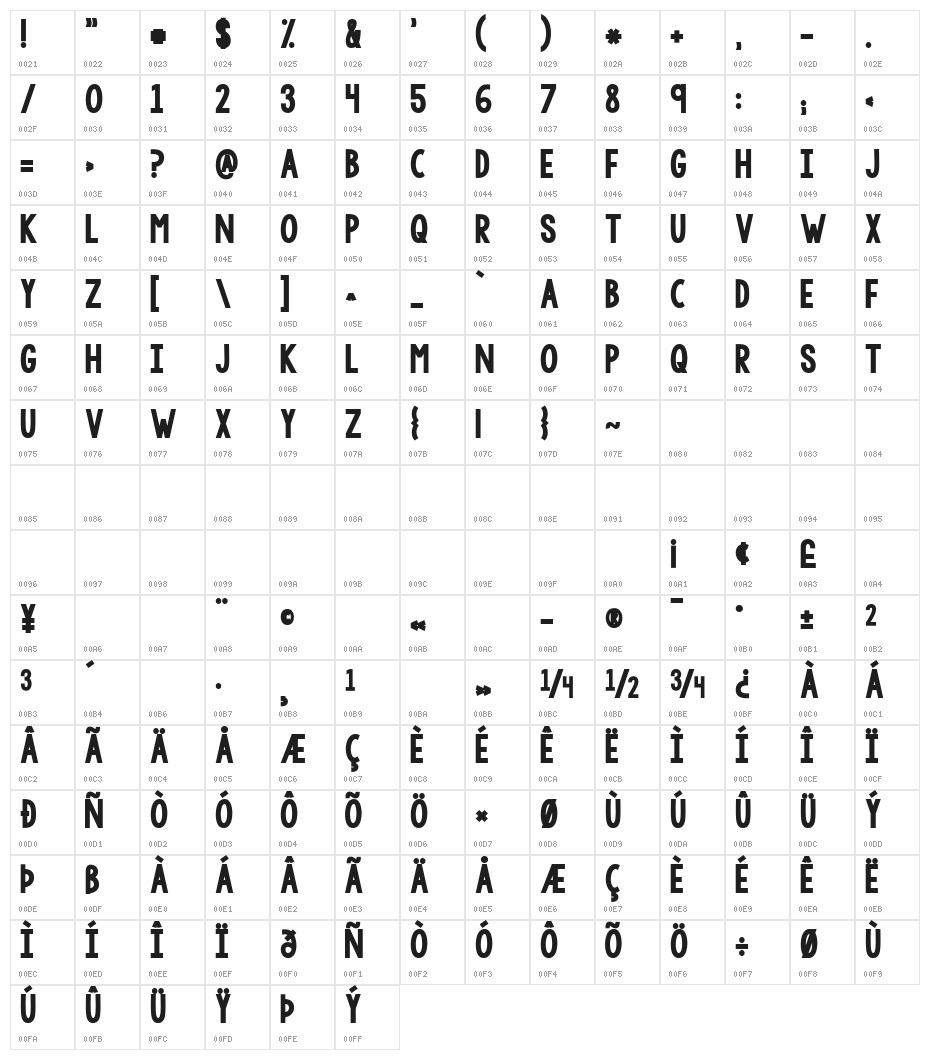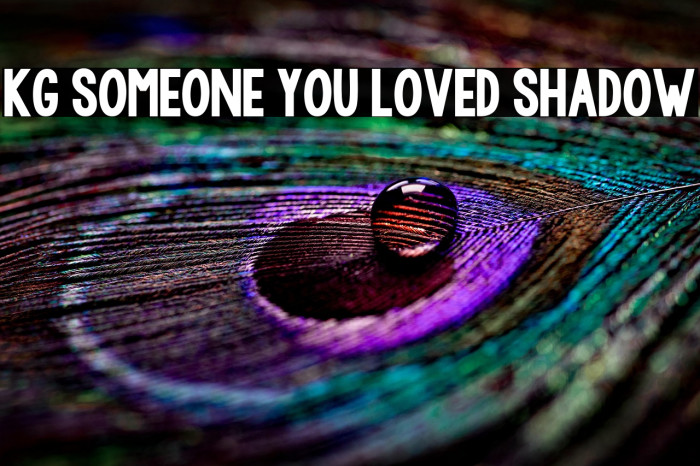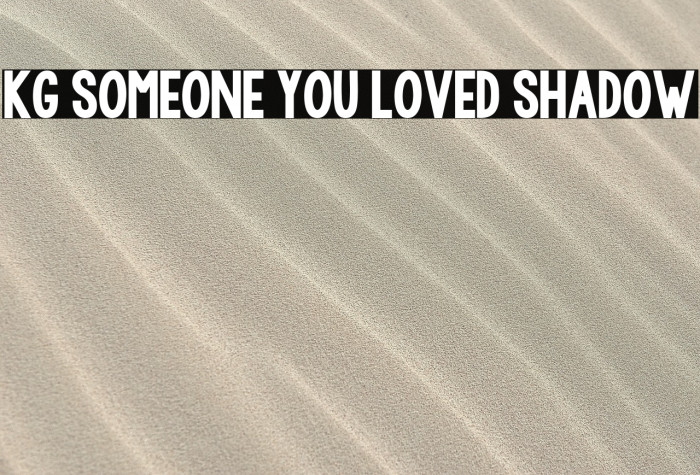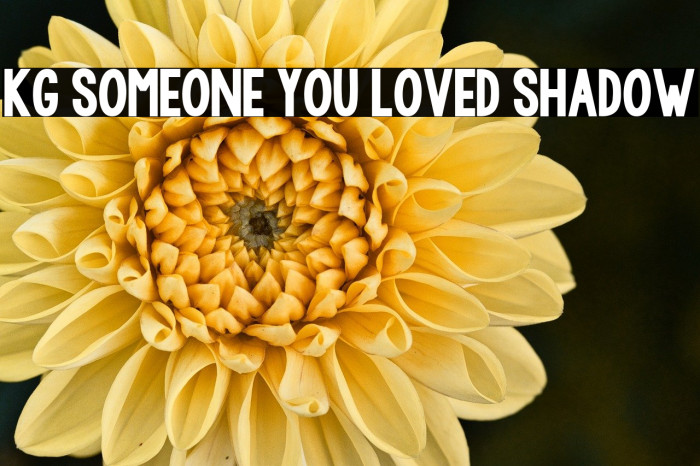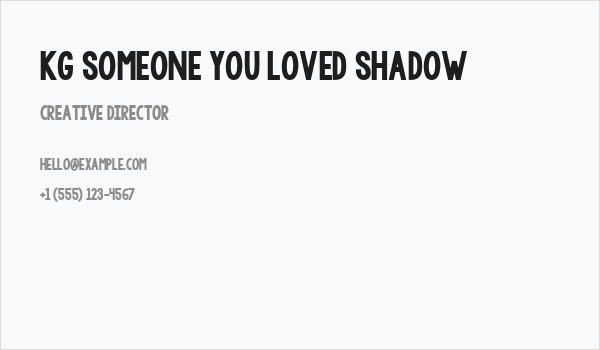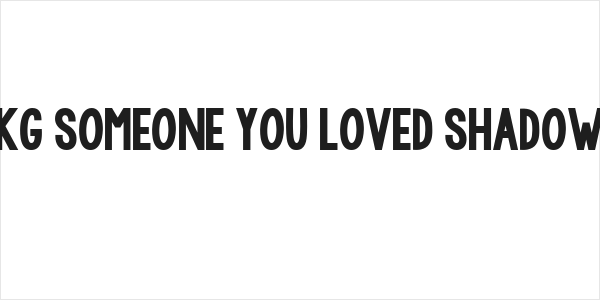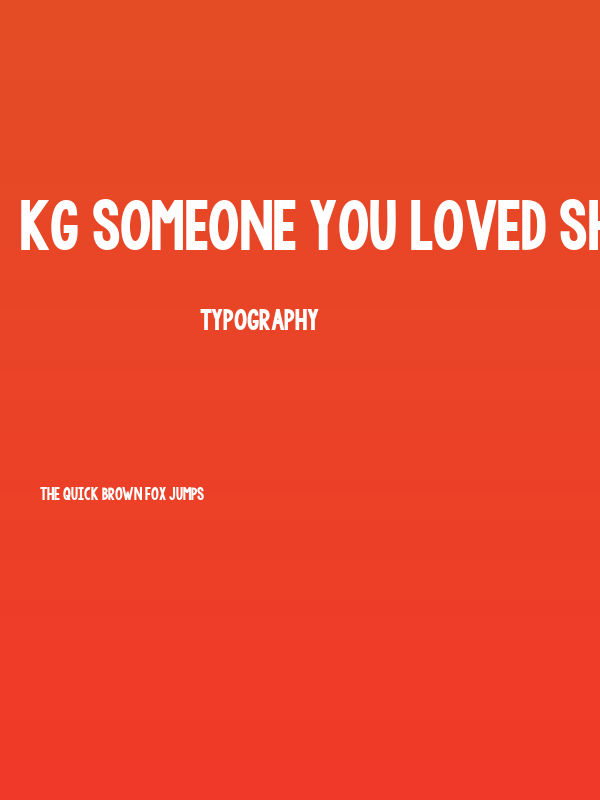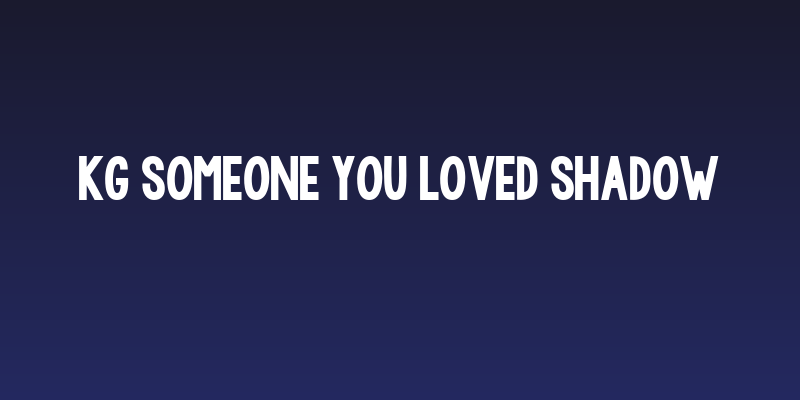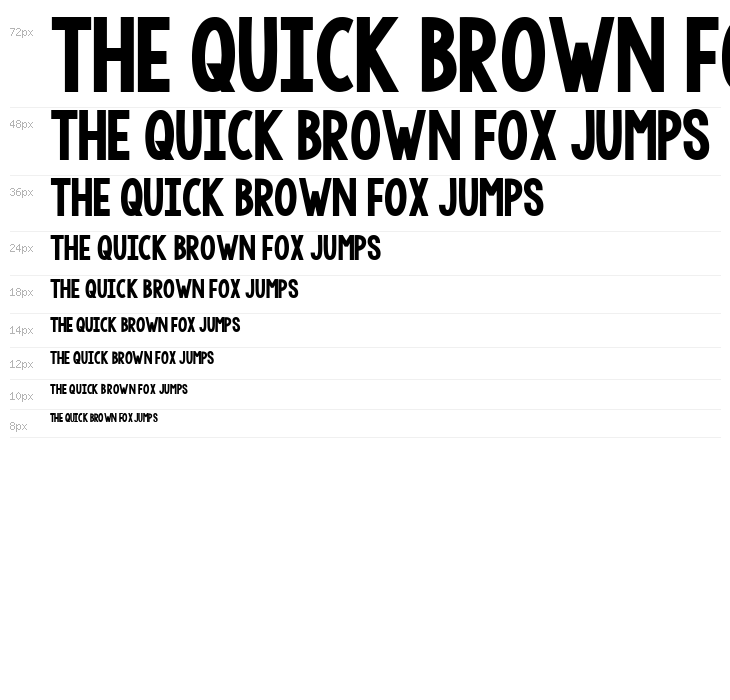
KG Someone You Loved Shadow Font
KG Someone You Loved Shadow Description
This font features bold, uppercase and lowercase letters with a strong presence. The characters are thick and have a consistent stroke width, providing a sense of stability and impact. The design is straightforward, with clean lines and minimal embellishments, making it highly legible. The numerals are equally bold, maintaining the same weight and style as the alphabet. Special characters are included, matching the overall aesthetic with a robust and clear appearance. This font is versatile, suitable for various applications where a strong, clear message is needed.
| Proposed Projects | Ideal for posters, headlines, branding, and any design requiring a strong visual impact. |